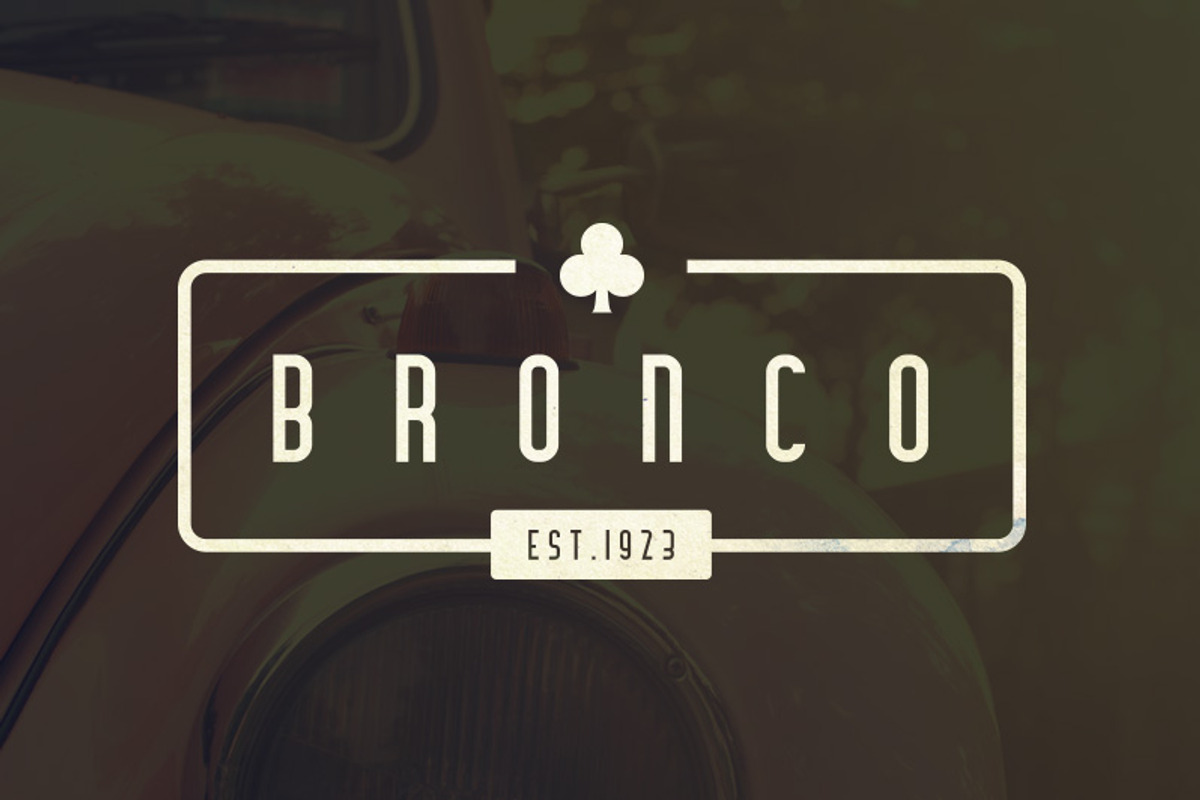
Bronco Typeface
Bronco Typeface by Tugcu Design Co. is a font selected for branding, posters, packaging, typography.
- Bronco is an uppercase display typeface in Inline and regular styles.
- Many of the letters have alternate (higher) versions which you can toggle with caps lock.
Bronco Typeface by Tugcu Design Co. fits naturally into Branding, posters, packaging, typography.